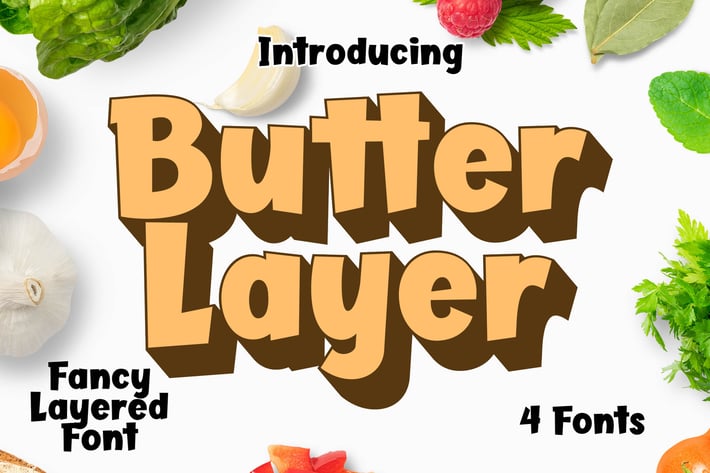
Butter Layer 4 Fonts
We have a new font for you called Butter Layer. This is a layered font, a fancy font, a fun font that very very useful for many your design projects. You can use it for logo, poster, menu, clothing, education project, and others.
Butter Layer Solid (regular) OTF
Butter Layer shadow OTF
Butter Layer outline OTF
Butter Layer Extrude OTF
* Multilingual support : AÀÁÂÃÄÅCÇDÐEÈÉÊËIÌÍÎÏNÑOØÒÓÔÕÖUÙÜÚÛÝŸÆŒßÞþ